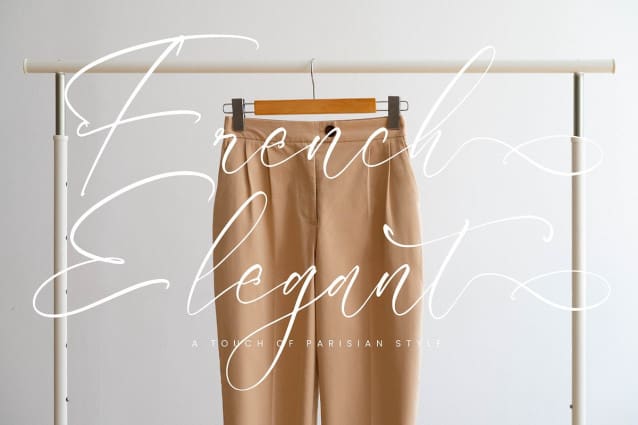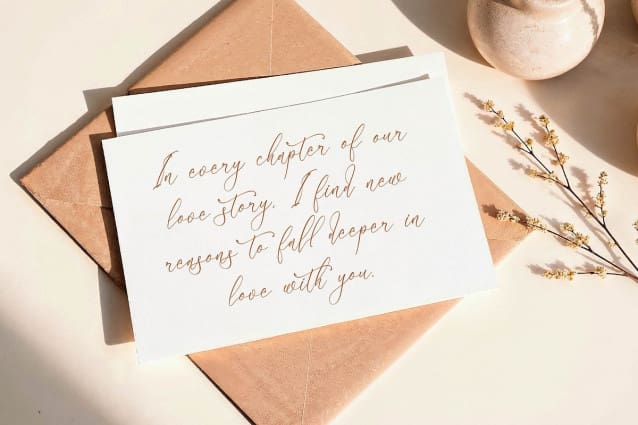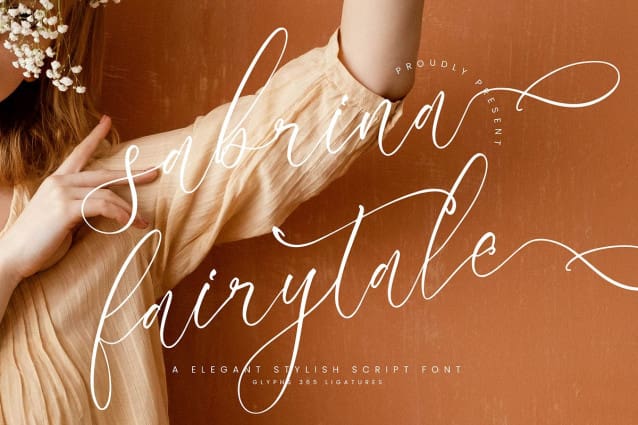
Sabrina Fairytale Font
Sabrina Fairytale – A Elegant Stylish Script Font, from Integritype Studio, perfect for any project like: logos, branding projects, homewares designs, product packaging, mugs, quotes, posters, shopping bags, t-shirts, covers books, business cards, invitation cards, greeting cards, labels, photography, watermarks, special events and all your other luxury projects that require a premium taste.